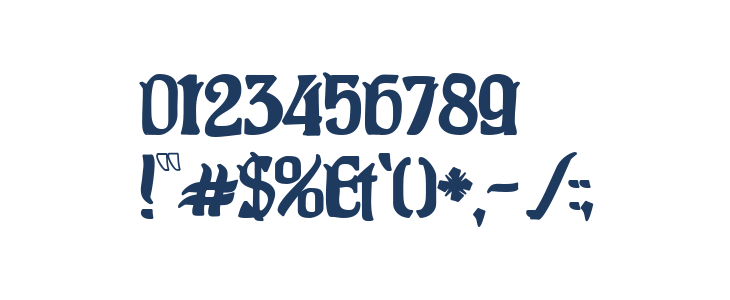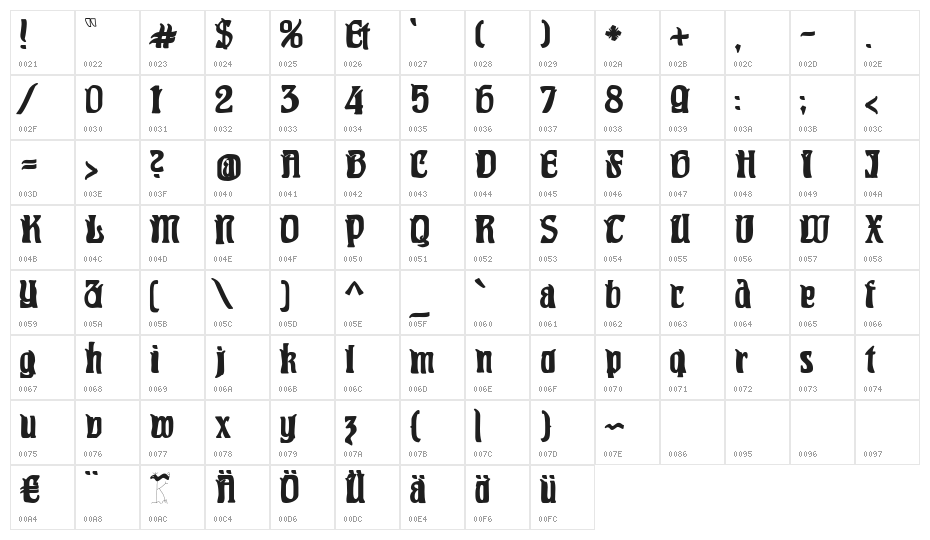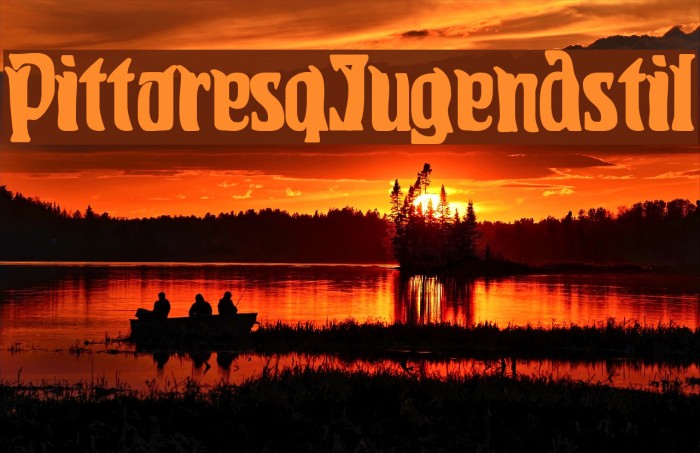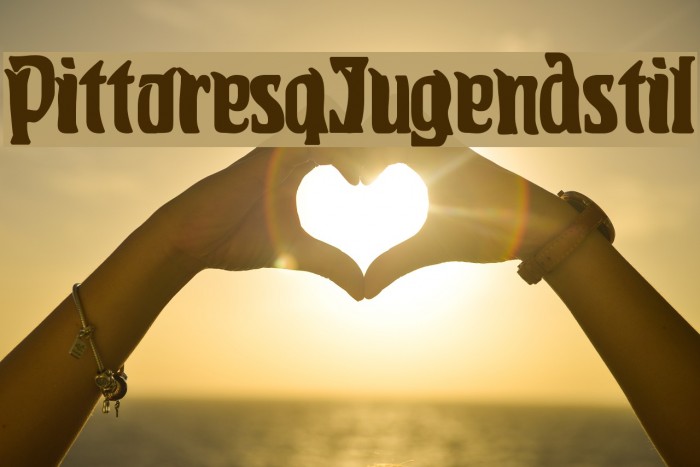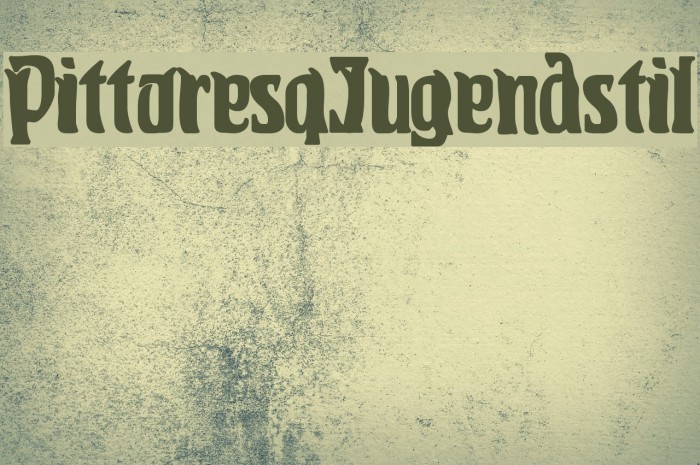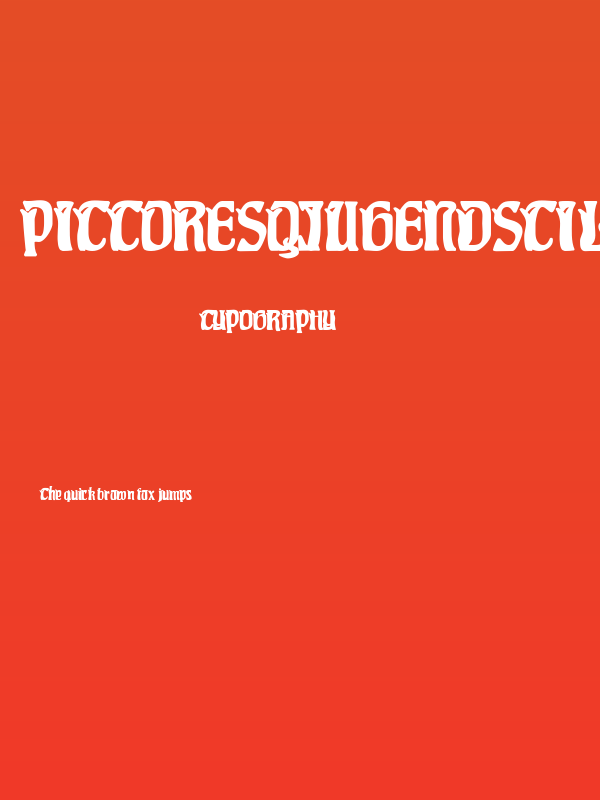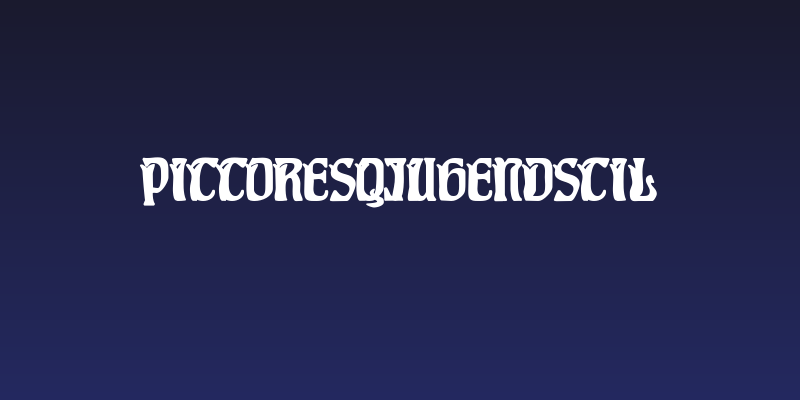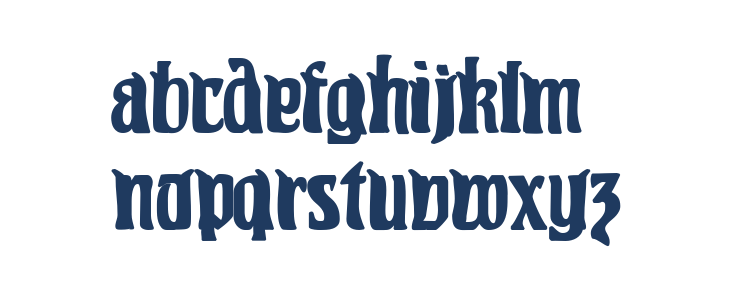
PittoresqJugendstil Font
PittoresqJugendstil Description
This font embodies a bold and artistic style reminiscent of the Jugendstil movement, characterized by its intricate and decorative letterforms. The uppercase letters feature strong vertical strokes with unique, flowing curves that add a sense of movement and elegance. The lowercase letters maintain this decorative style, with a slightly more condensed appearance, offering a harmonious balance between the two cases. Numbers are equally bold and stylized, ensuring consistency throughout the typeface. Special characters are creatively designed, complementing the overall aesthetic. This font's distinctiveness makes it ideal for projects that require a touch of artistic flair and historical elegance.
| Proposed Projects | Ideal for art nouveau themed designs, posters, branding, and decorative invitations. |